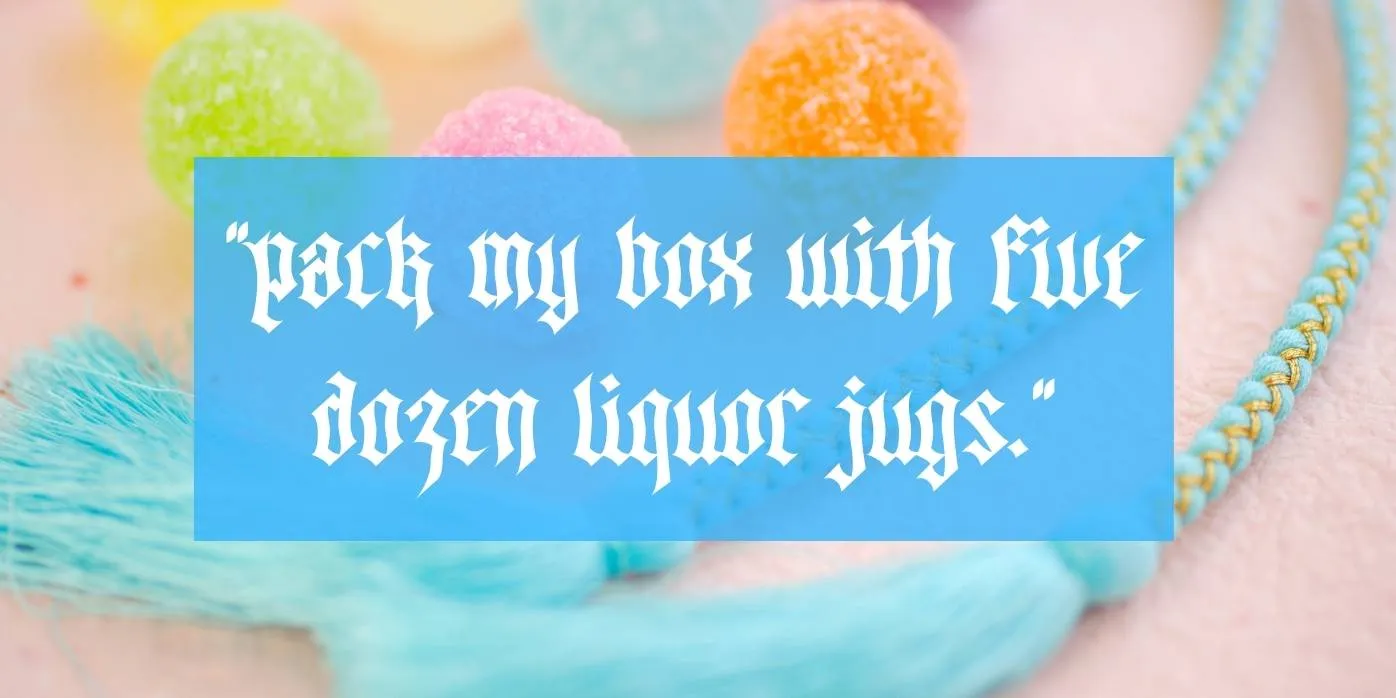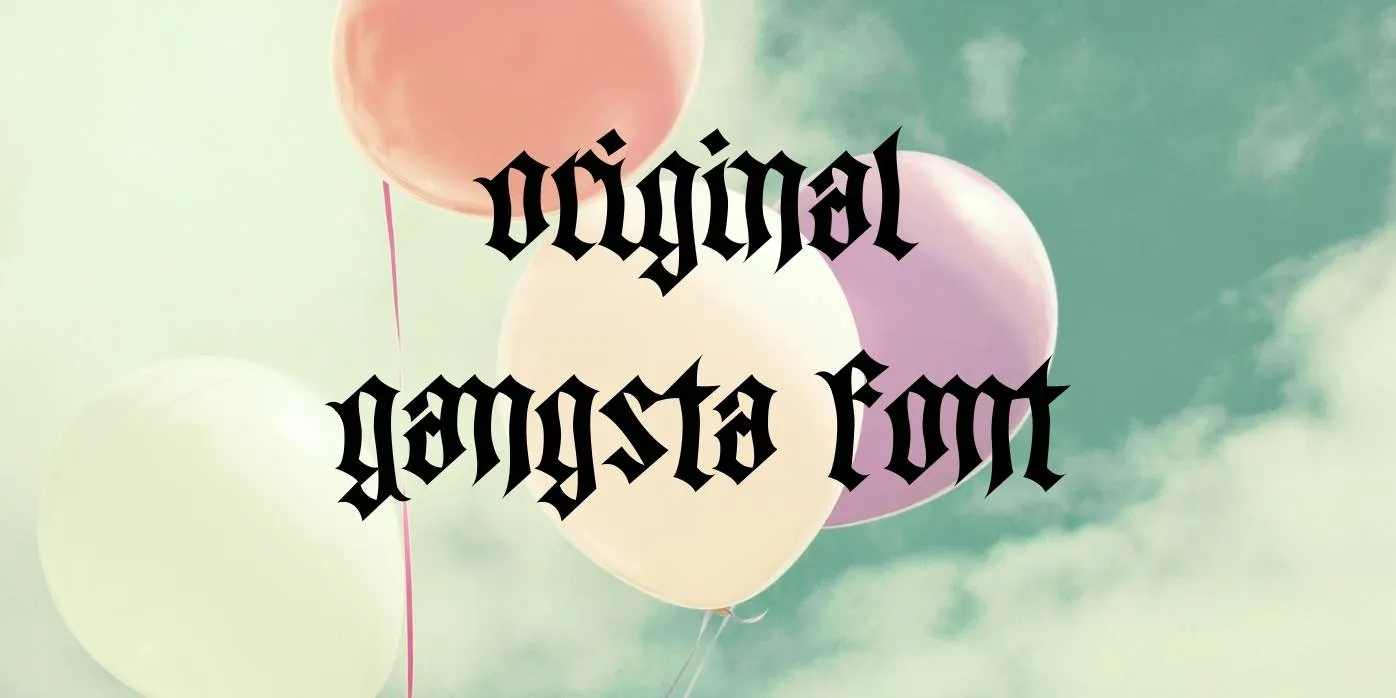
Original Gangsta Font
Today, we present an awesome and classic font named Original Gangsta Font. This is an odd one from another type of font. It belongs to the calligraphy font family. This cute typeface is available in both OpenType and True type file formats which increases its popularity.
This classy typeface was developed and published by very famous designer Gilang Purnama Jaya. This tremendous typeface consists of a lot of attractive characters. These almost 148 characters are available with extra features and uniqueness. In all of these some very famous characters are numerals, icons, Symbols, and so on.
It has soo much keen and clean features that increase its overall performance. Midnight Font is a similar font to this cute typeface. It is the best and most popular for Cascading Style Sheet (CSS). Its generator tool will allow you to create many advanced designs according to your need.